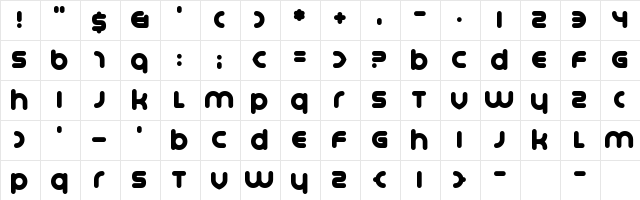
Platonica Regular
| Designer | Allison JJ |
Design Context for Platonica Typeface
Platonica offers clean, dependable letterforms without strong stylistic allegiance, making it a practical choice for designers who need flexibility.